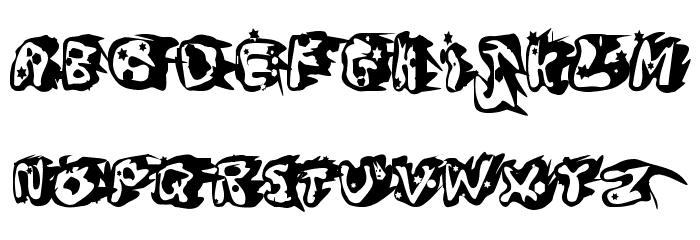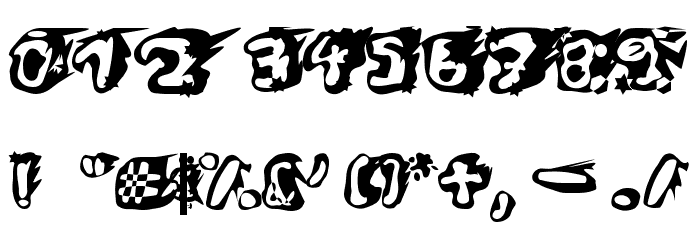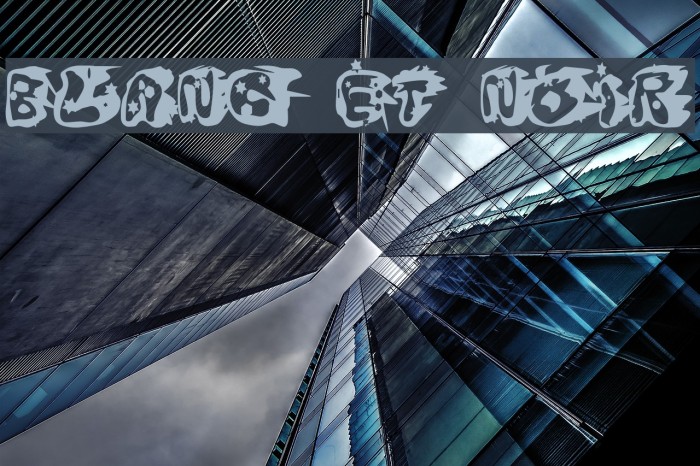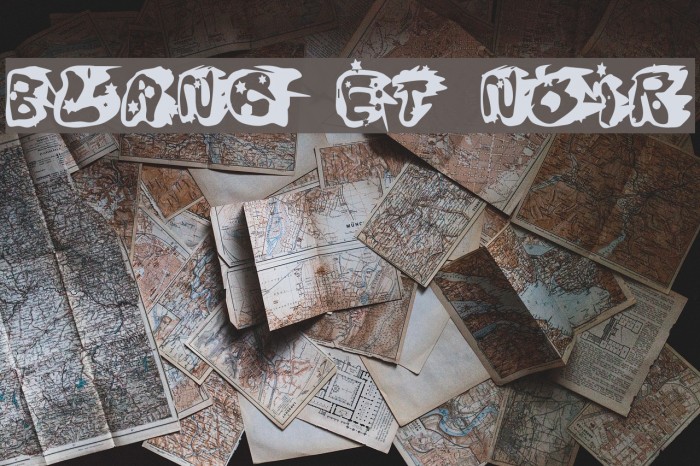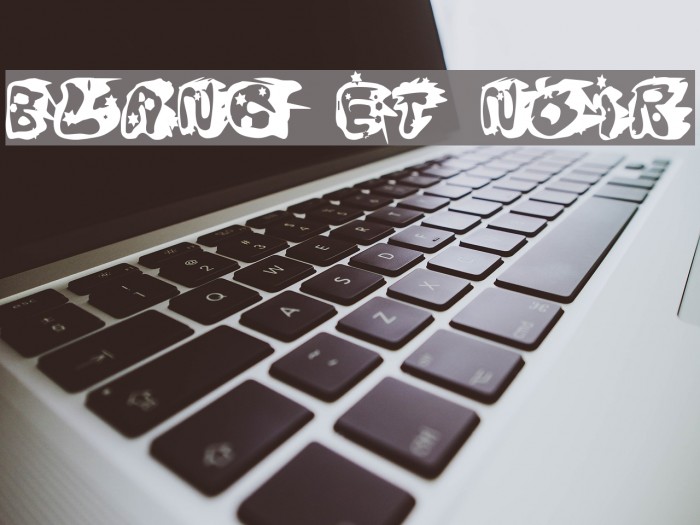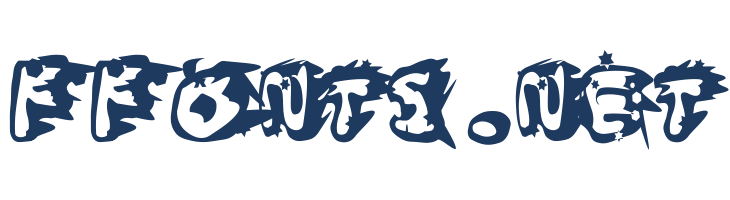
Blanc et Noir Font
This font features a bold, graffiti-inspired style with a dynamic and edgy appearance. The characters are heavily stylized, incorporating sharp angles and star-like embellishments that give it a rebellious and urban feel. The letters are filled with solid black, creating a strong contrast against any background. This font is highly decorative, with each character appearing unique yet maintaining a cohesive overall look. The design is reminiscent of street art, making it perfect for projects that require a bold, attention-grabbing typeface.
A bold, graffiti-inspired font with sharp angles and star embellishments.
- Proposed Projects: Ideal for street art designs, urban-themed posters, music album covers, and edgy branding projects.
- Overall Style: Urban, Edgy, Graffiti